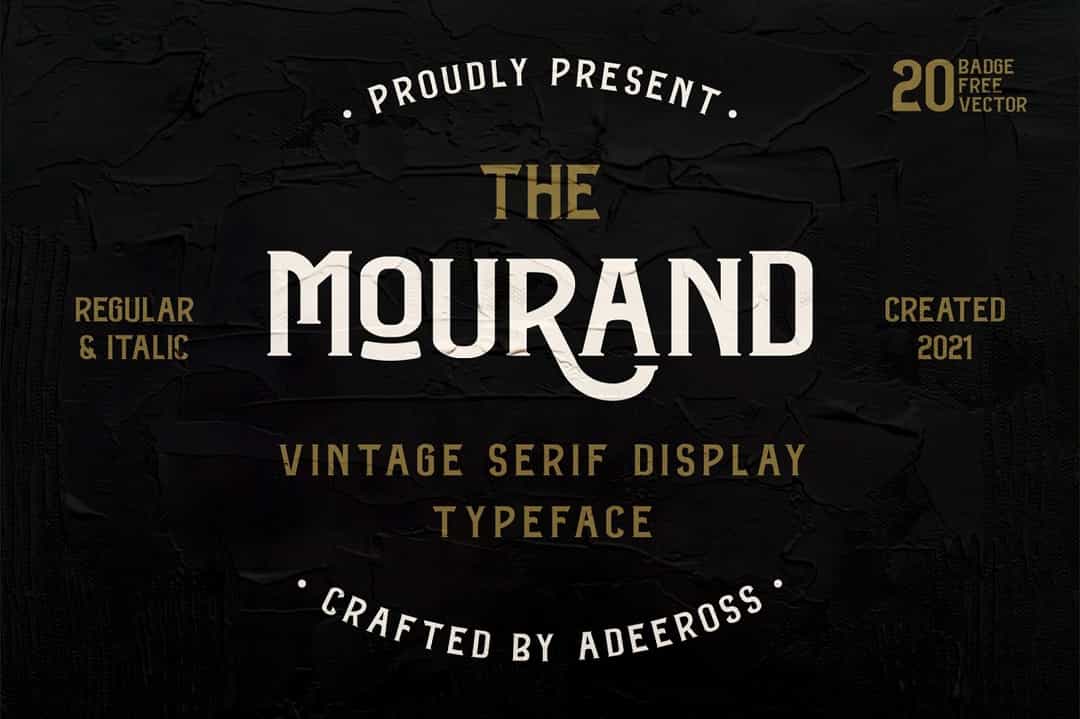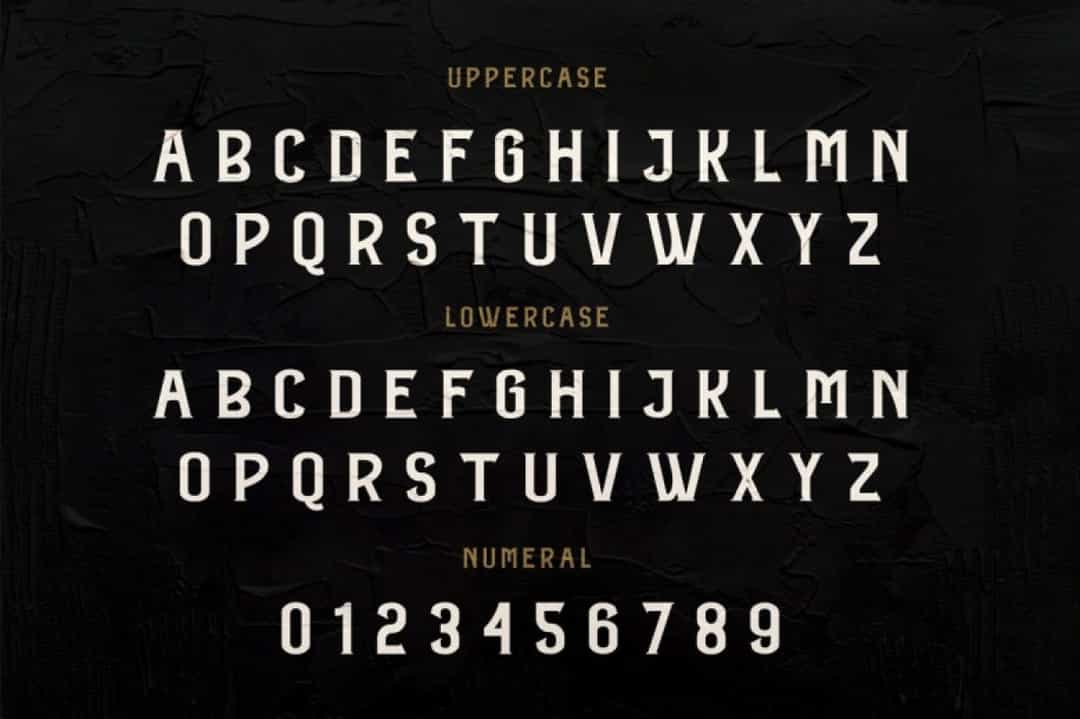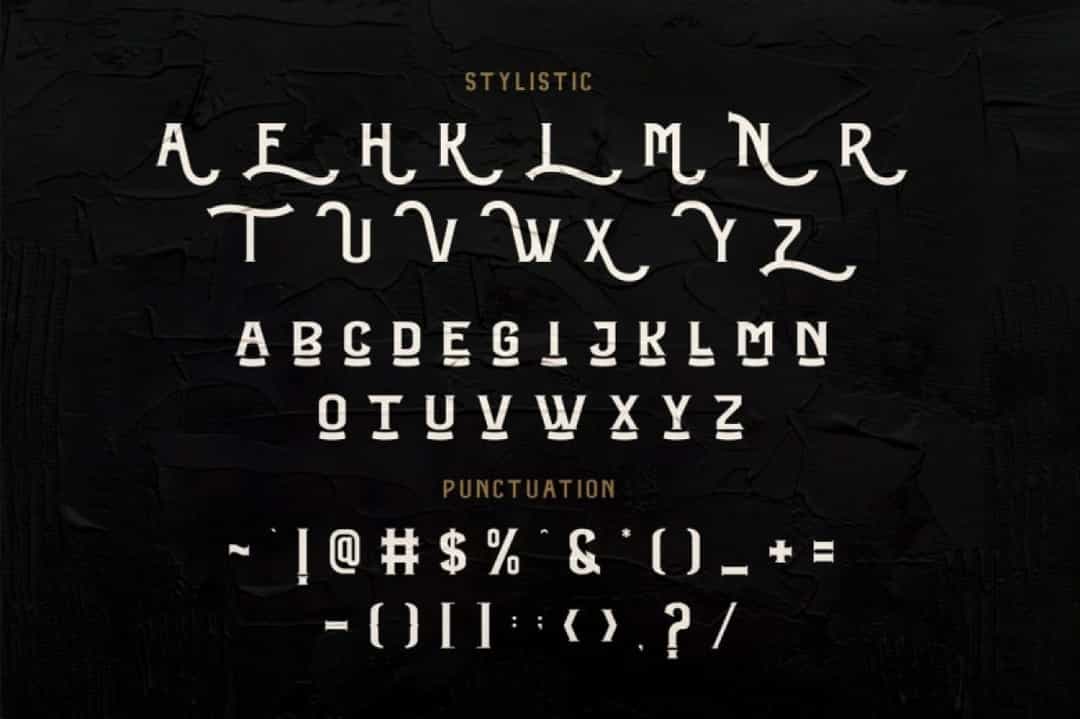
The Mourand Font
The Mourand Display Font is an eye-catching thick, heavy-lettered and vintage-styled font designed to make your designs truly distinct. Perfectly suitable for a range of concepts and themes.